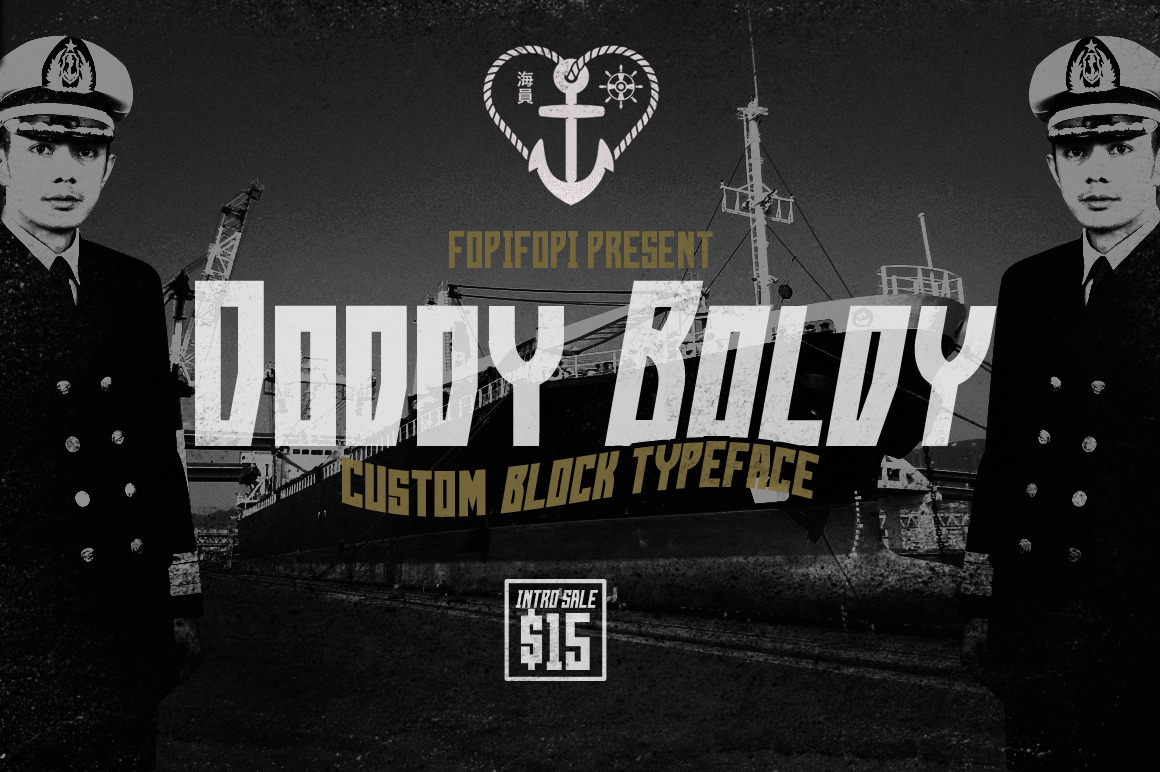
Doddy Boldy is a block font look strong and heavy. You can use Doddy Boldy Font in any setting; name on metal material (ship name, car name, army plane,etc), vintage poster, film title, typography job, embroidery, etc. Sky is your limit. Hope you like it. Bon Voyage!!!